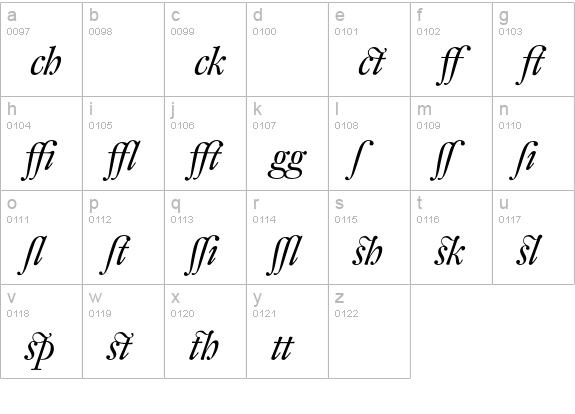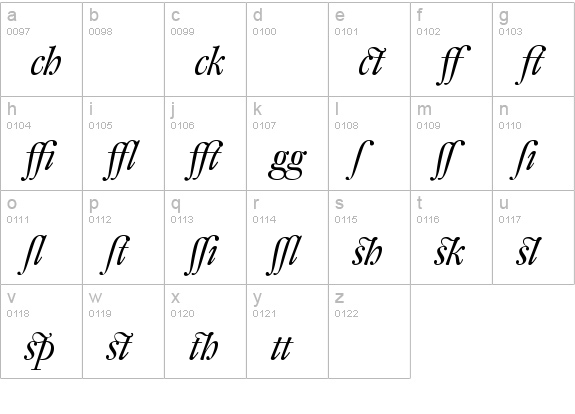
DTLFleischmannD-AltItalic Font Details
DTLFleischmannD-AltItalic is a stunning and elegant font that exudes sophistication and style. The unique design of this font makes it perfect for adding a touch of charm to any project. Its graceful curves and slanted italic style give it a timeless and classic look that is sure to captivate your audience. What makes DTLFleischmannD-AltItalic even more amazing is that it is available for free download at FontsMarket.com. Now you can enhance your designs with this beautiful font without breaking the bank. Whether you're working on a professional project or a personal creative endeavor, DTLFleischmannD-AltItalic is sure to elevate your work to the next level. Don't miss out on the opportunity to add this exquisite font to your collection. Download DTLFleischmannD-AltItalic today and unleash your creativity with a touch of elegance and sophistication.